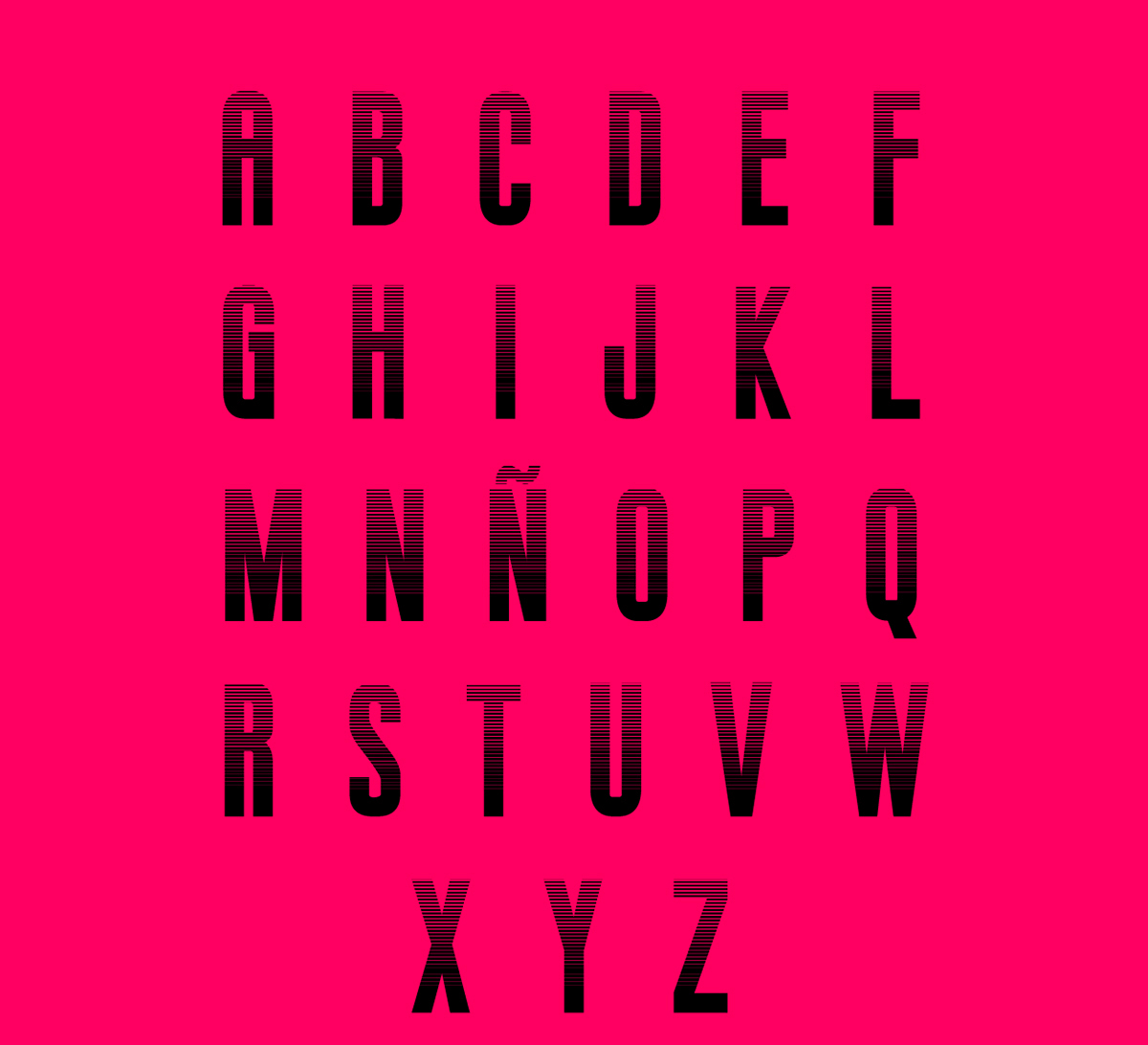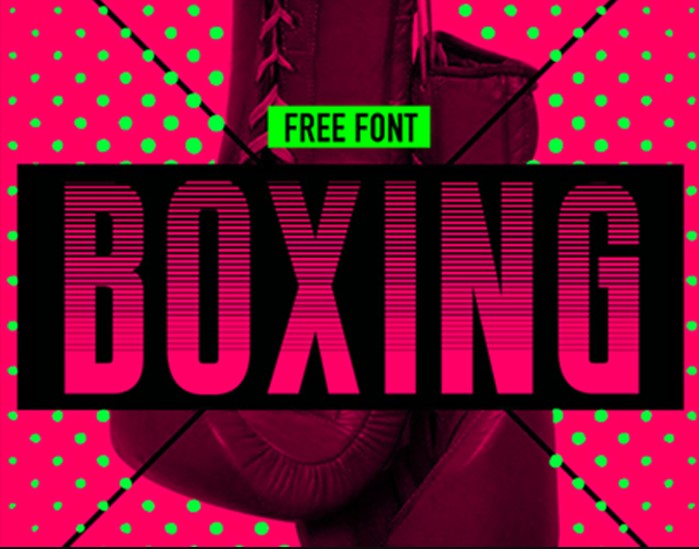
Boxing Font
Right here is the Boxing Font that is known as the unique font generator. This typeface is similar to the Everlast font and it is available for free. A smart route of motion for all artists is to check the following font. And current-day typefaces, as those are commonplace free for current enterprise business enterprise use.